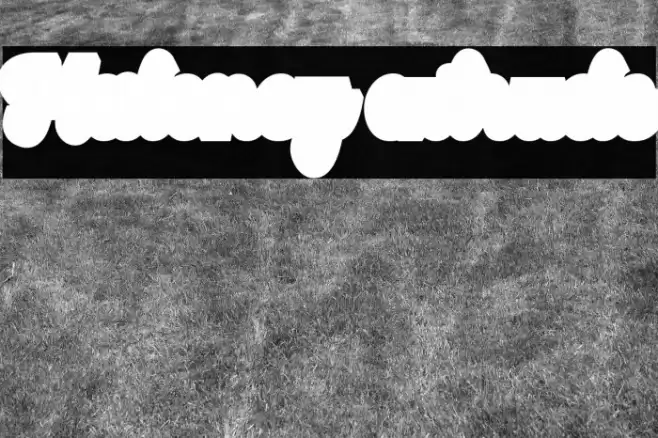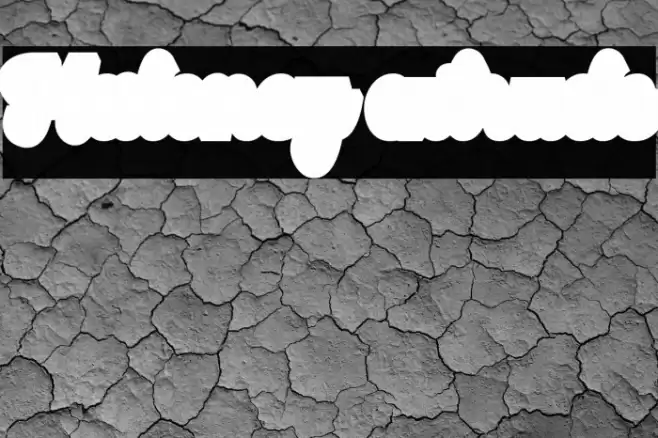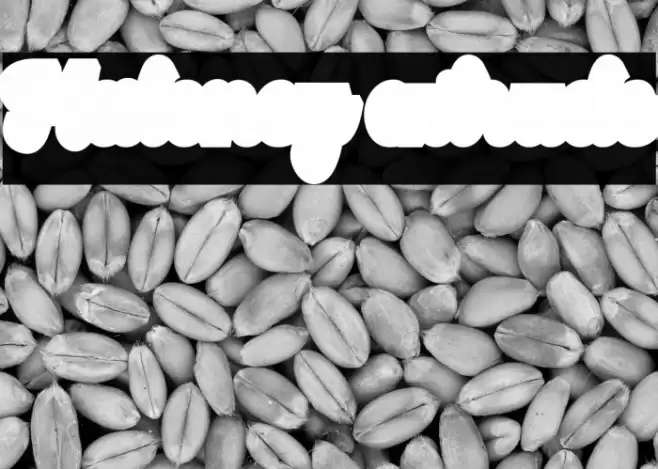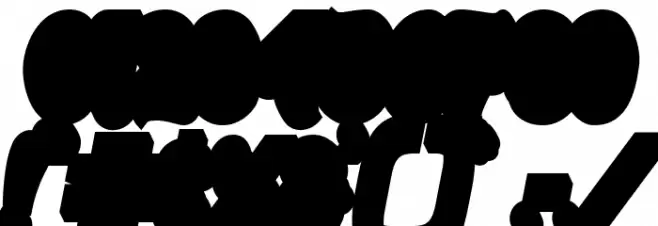
Maloney extrude Font
Maloney extrude Description
This font features a bold and playful design with a three-dimensional extruded effect, giving it a striking and dynamic appearance. The characters are rounded and thick, creating a sense of volume and depth. The style is reminiscent of retro or vintage aesthetics, making it suitable for projects that require a touch of nostalgia or a bold statement. The exaggerated thickness and shadowing add a unique flair, making it stand out in any design. The font's playful nature is balanced by its solid structure, ensuring readability while maintaining its decorative appeal.
A bold, playful font with a 3D extruded effect and retro vibes from Regular fonts.
- Font: Maloney extrude
- Proposed Projects: Ideal for posters, logos, headlines, and any design needing a bold, retro touch.
- Width: Expanded
- Overall Style: Vintage